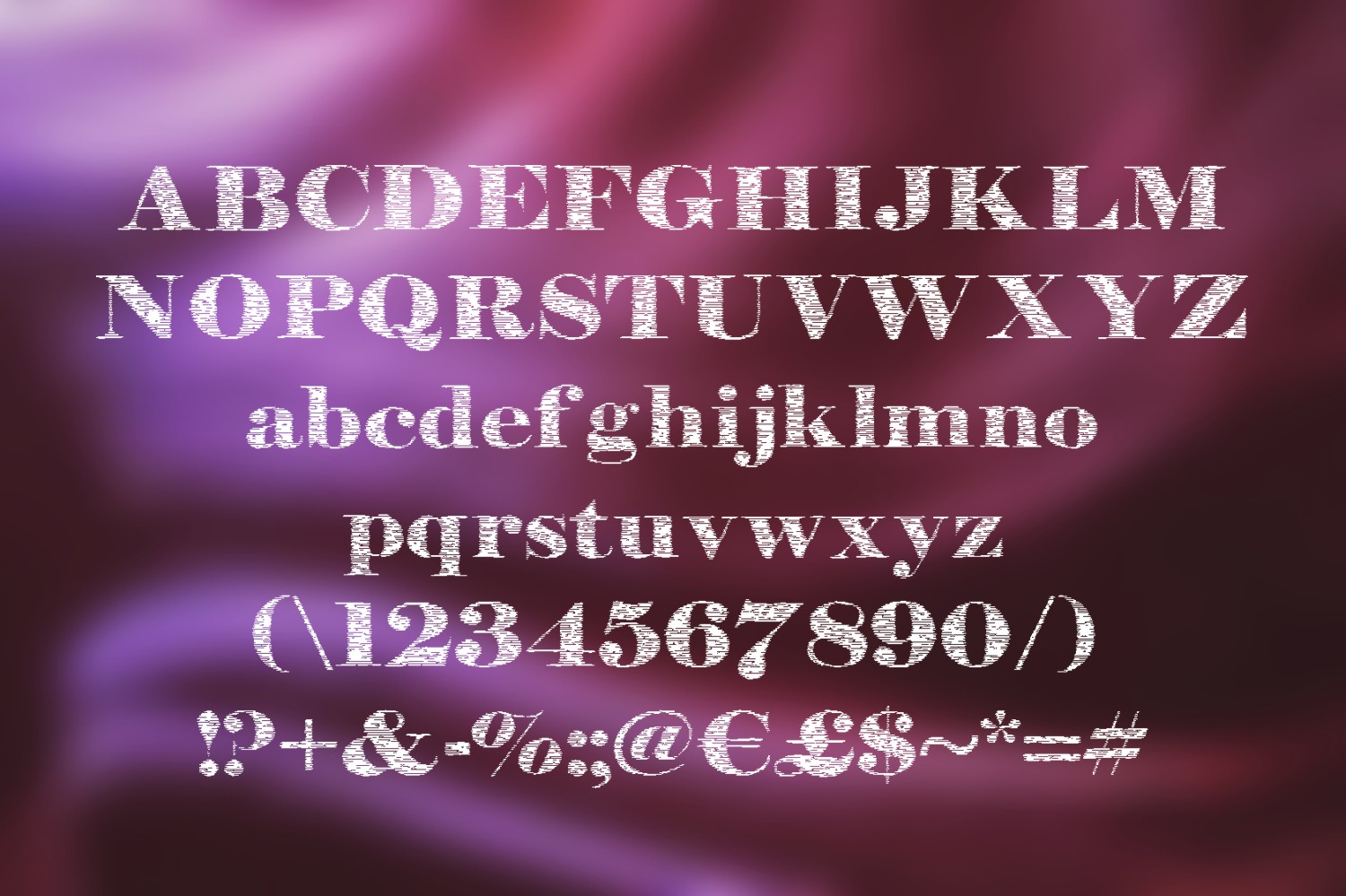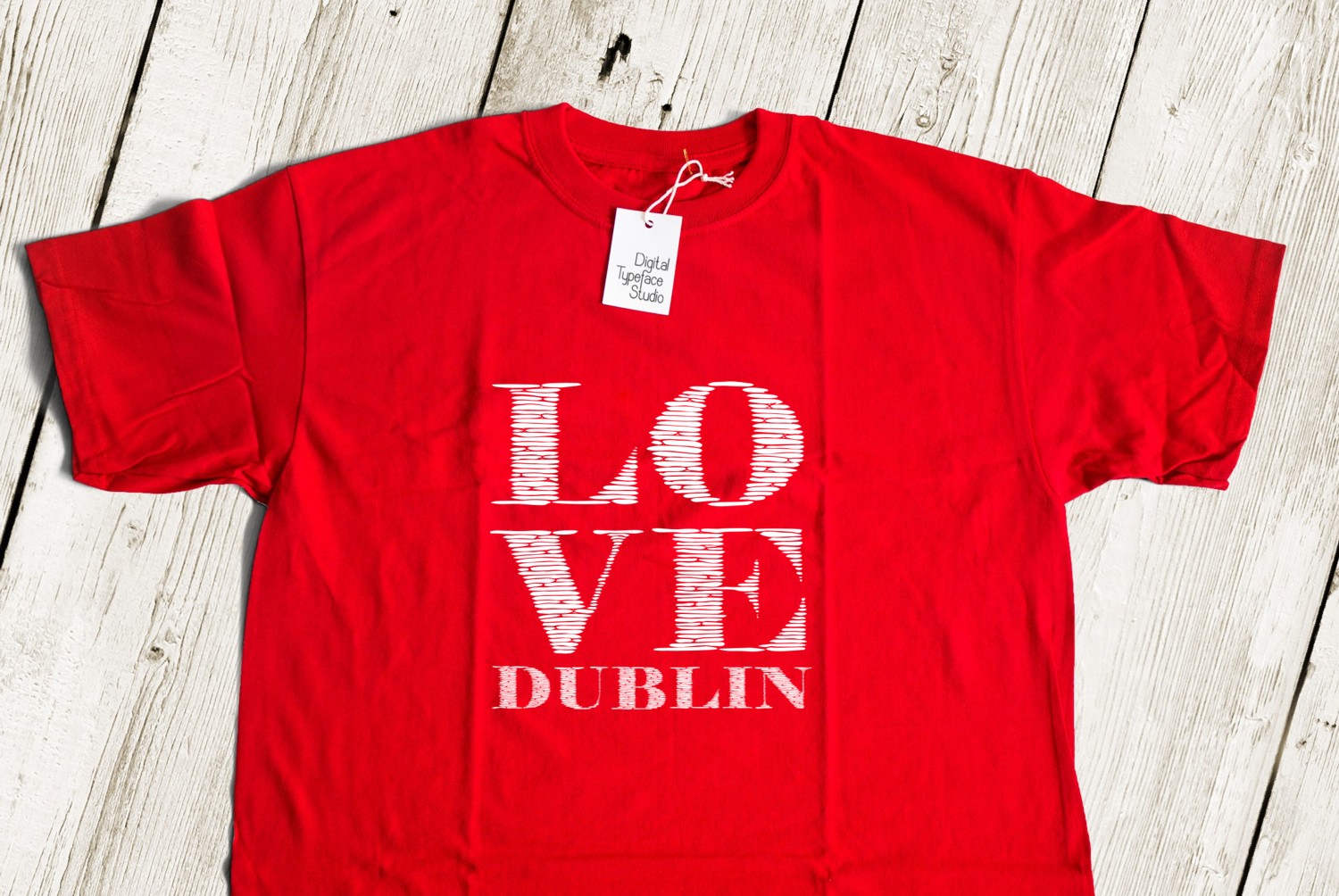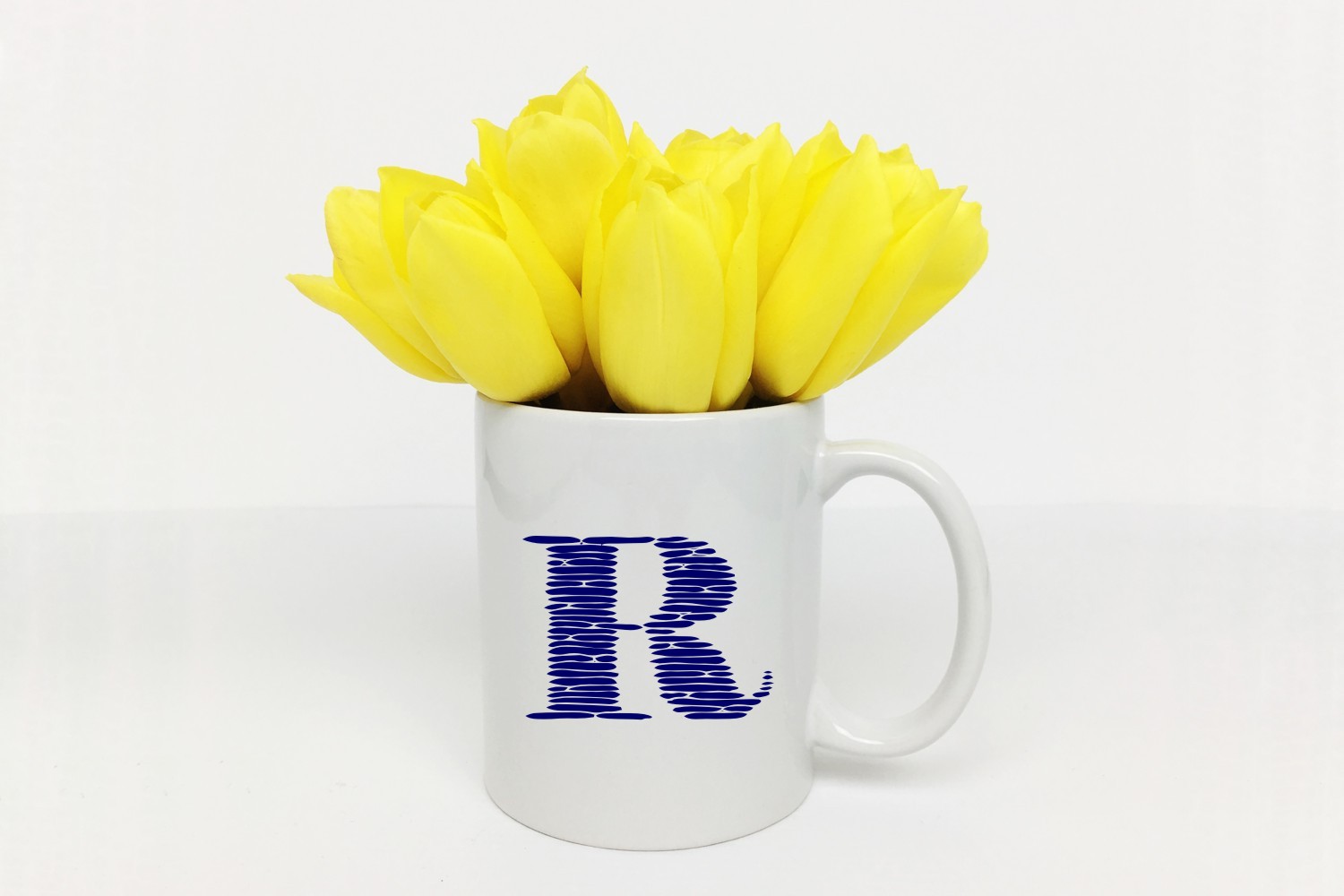
Introduction to Layers Font
Have you ever been in the middle of a creative project, staring at a blank screen, trying to find the perfect font to bring your vision to life? It’s that moment of frustration when you wish you had a design resource that could elevate your work to the next level. For designers, finding the right font can make all the difference between a mediocre and a stunning design.
That’s where the Layers Font comes in – a handcrafted type that’s as unique as it is versatile. With its transparent background and high-quality design, this font is perfect for any creative project that requires a touch of sophistication and elegance.
Key Features of Layers Font
- High-quality design resource ideal for creative projects, offering a professional look and feel.
- Features a transparent background, allowing for seamless integration into any design without visual clutter.
- Designed with precision and care, offering crisp and clear typography that elevates any creative project.
Honest Review: Layers Font
As a designer, I’m always on the lookout for high-quality design resources that can elevate my creative projects. Recently, I stumbled upon the Layers Font, and I must say, it’s been a game-changer for my work. ✨
Here are some of the things that work well with Layers Font:
- It has a wide range of styles and weights, making it perfect for creating visually appealing typography.
- The font is highly customizable, allowing me to adjust the size, color, and spacing to suit my design needs.
- The transparent background feature is a great addition, making it easy to overlay text on images or backgrounds.
- The font may not be as versatile as some other options, particularly for complex layouts or large blocks of text.
- Some users may find the font’s style a bit too minimalist, which may not suit every design aesthetic.
Overall, I’m thoroughly impressed with Layers Font. It’s a solid addition to any designer’s toolkit, and I’ve already used it in several successful projects. If you’re looking for a high-quality, easy-to-use font for your creative projects, I highly recommend giving Layers Font a try.
Layers Font
Layers Font is a versatile design resource that can be used in a variety of creative projects. Some common use cases include:
- Creating eye-catching headings and titles
- Designing posters and flyers
- Developing branding materials
What makes Layers Font a valuable design resource?
Layers Font is a valuable design resource due to its high-quality design and versatility. The font is suitable for a wide range of creative projects, from branding and marketing materials to digital products and websites. Its clean and modern design makes it an excellent choice for designers looking for a reliable and effective font solution.